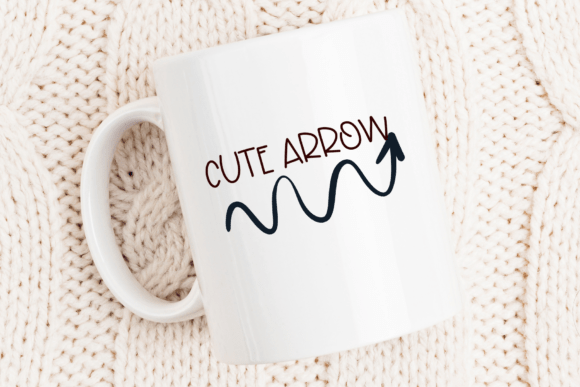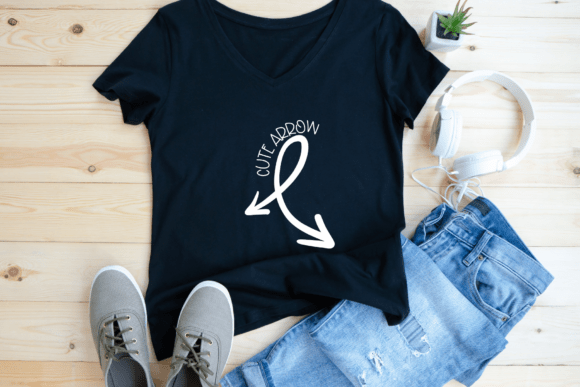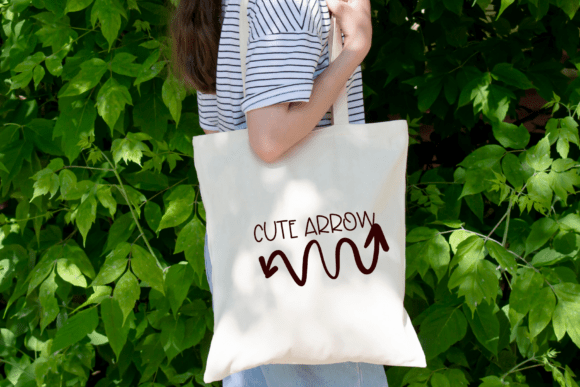
Introduction to Cute Arrow Font
Remember the thrill of creating something with your own hands? The feeling of bringing an idea to life, of seeing your imagination take shape? That’s exactly what the Cute Arrow Font does for designers and crafters alike. This adorable dingbats font is more than just a pretty face – it’s a design resource that can elevate your creative projects to the next level.
Whether you’re working on a wedding invitation, a DIY craft, or a logo design, the Cute Arrow Font is a versatile tool that can add a touch of whimsy and personality to your work. With its sketched style and high-quality design, this font is perfect for anyone looking to add a little extra charm to their creative project. And the best part? It’s available for free download, making it an accessible design resource for designers of all levels.
Key Features of Cute Arrow Font
- Includes a range of arrow designs, from simple to complex, allowing for customization and creativity.
- Designed with a cute and playful aesthetic, perfect for adding a touch of whimsy to any design project.
Honest Review: Cute Arrow Font
I recently had the chance to use the Cute Arrow Font in one of my creative projects and I must say it’s been a game-changer. This free download has been a lifesaver for me when it comes to adding a personal touch to my designs.
What works well: ✨ The font is incredibly versatile and can be used for a wide range of projects, from digital art to print materials. The high-quality design and transparent background make it easy to use and edit.
Some limitations: ⚠️ The font only comes in a few styles, which can limit its use in more complex designs. Additionally, the font may not be compatible with all design software.
Overall, I’m really impressed with the Cute Arrow Font. It’s a valuable design resource that’s perfect for anyone looking to add a touch of whimsy to their creative project. Whether you’re working on a free download or a paid project, this font is definitely worth checking out.
Cute Arrow Font
The Cute Arrow Font is a free download design resource perfect for adding a touch of whimsy to your creative project. With its high-quality, transparent background, you can easily integrate it into your designs without any distractions.
Tips for Getting the Most Out of the Cute Arrow Font
For the best results, use the Cute Arrow Font in combination with other design elements to create a visually appealing design. Experiment with different font sizes, colors, and arrangements to find the perfect look for your project.
The Cute Arrow Font is perfect for a variety of creative projects, including social media graphics, blog posts, presentations, and more. Use it to add a touch of whimsy and personality to your designs and stand out from the crowd.